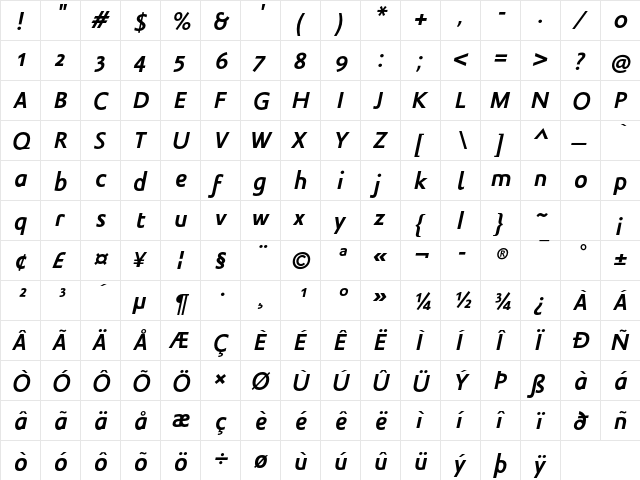
Legal LT Std Bold Italic Font Preview
| Foundry | Linotype GmbH |
| Designer | Hellmut G. Bomm |
Design Context for Legal LT Std Typeface
Legal LT Std takes a measured approach to typography — its balanced proportions and neutral character make it a reliable workhorse for both digital and print work. Its italic angle brings a sense of urgency and motion to the letterforms. The heavy weight commands attention and anchors typographic hierarchies.